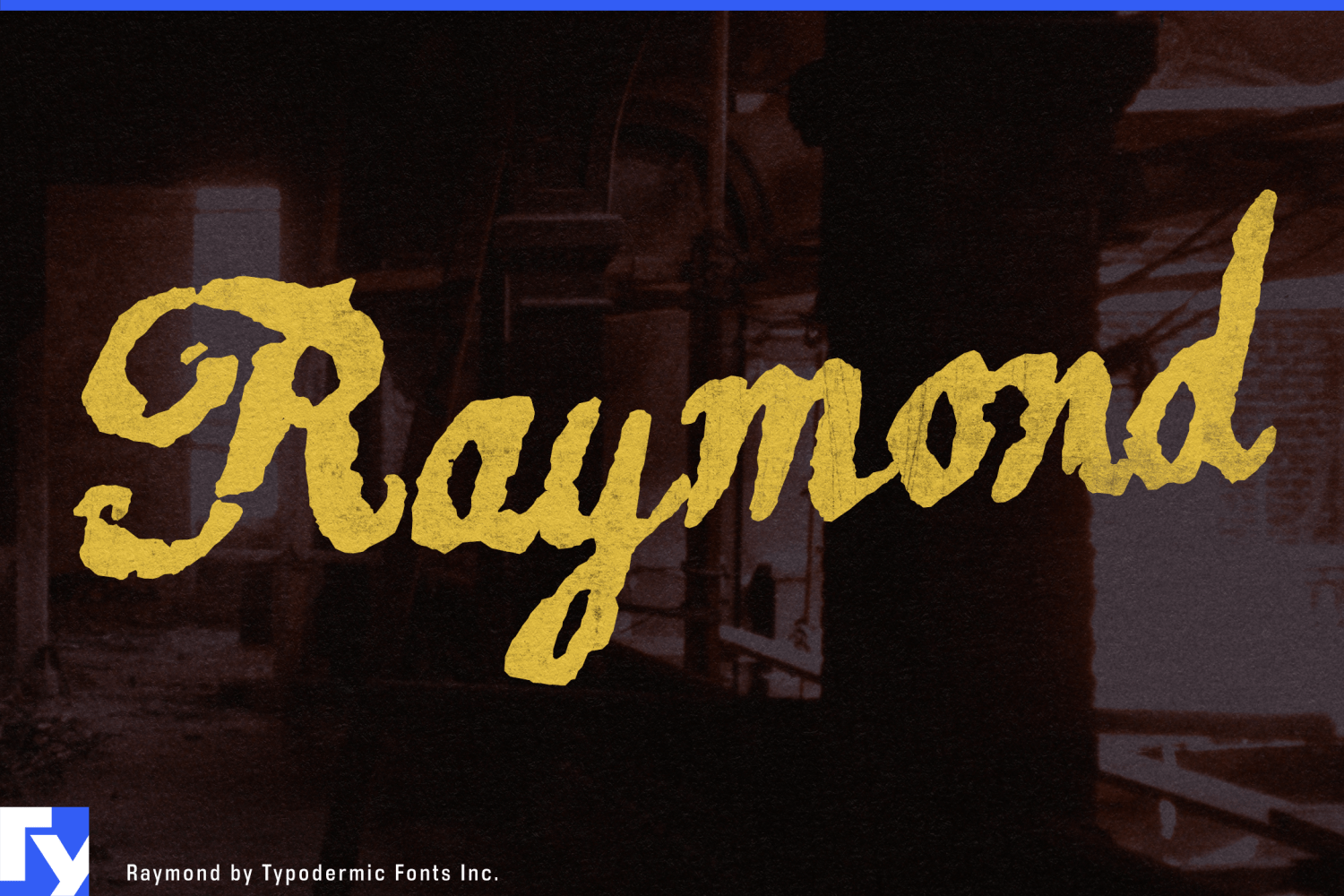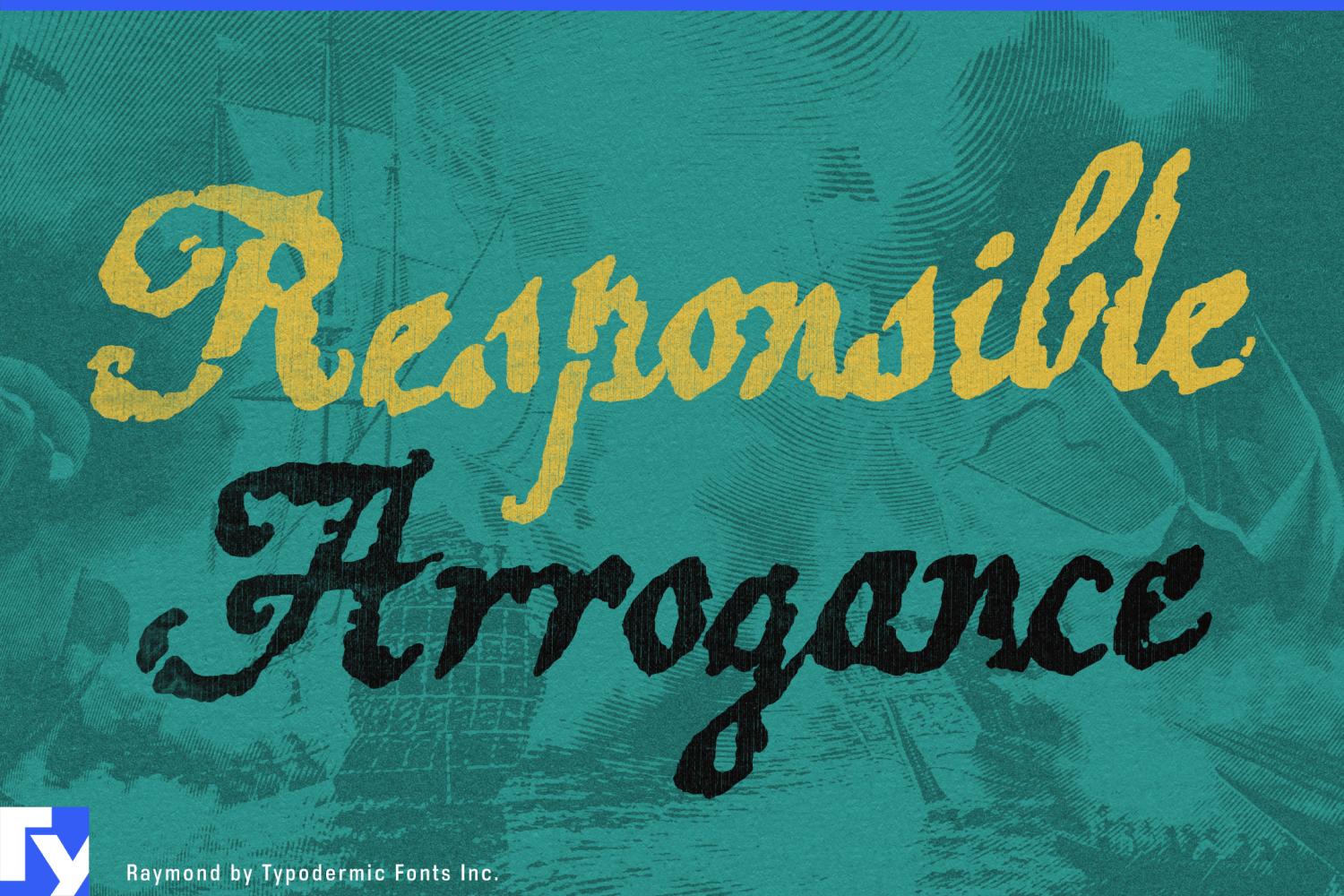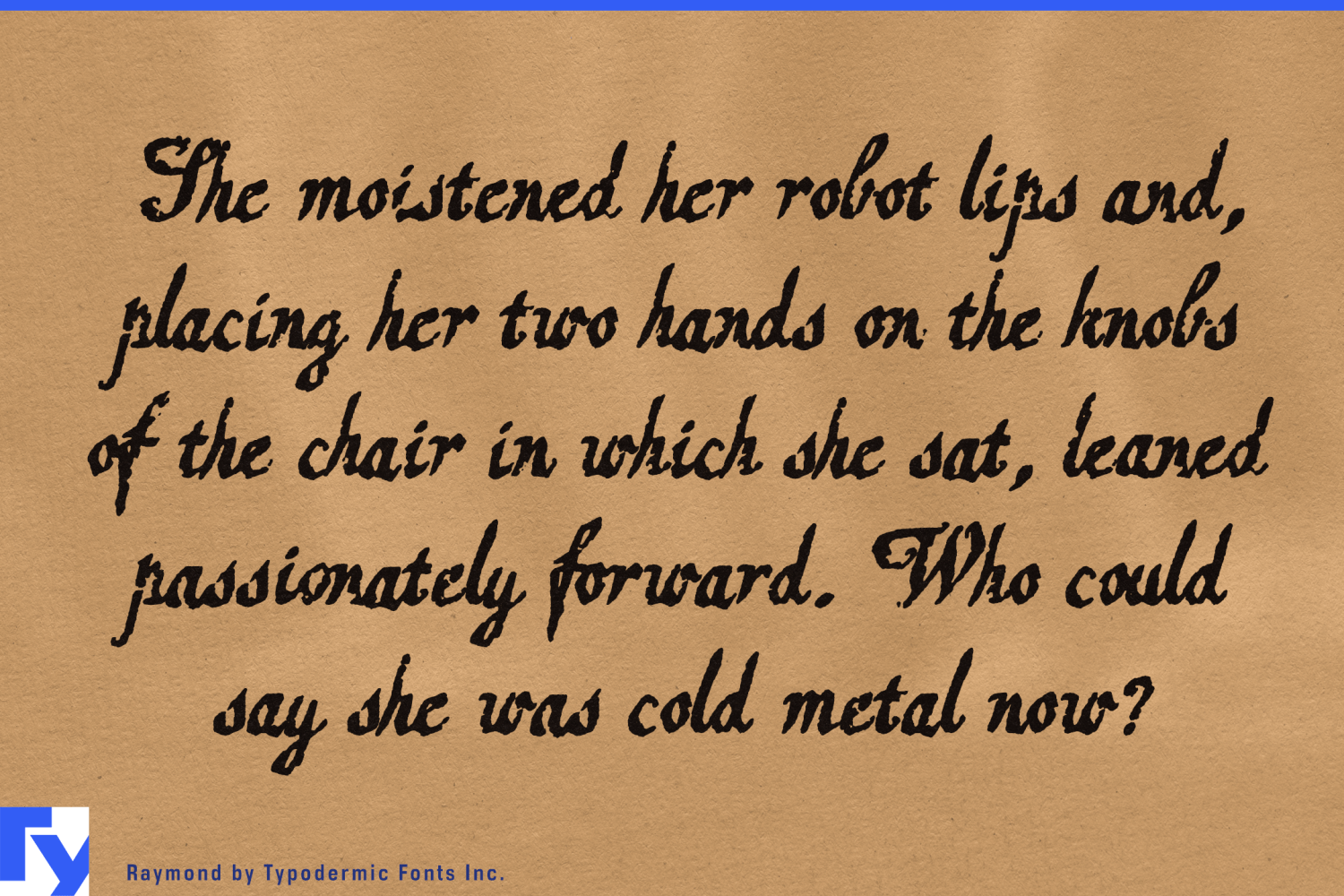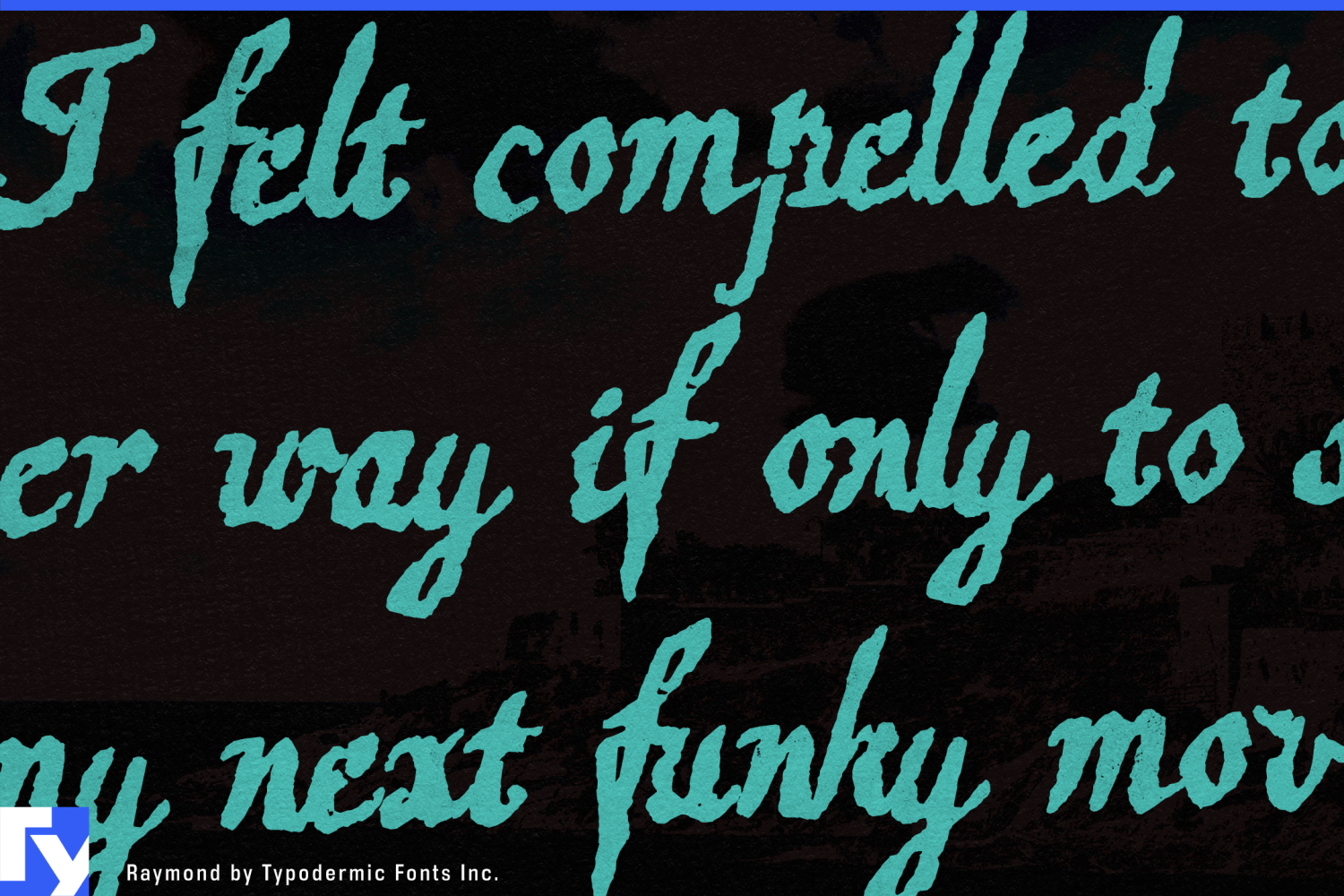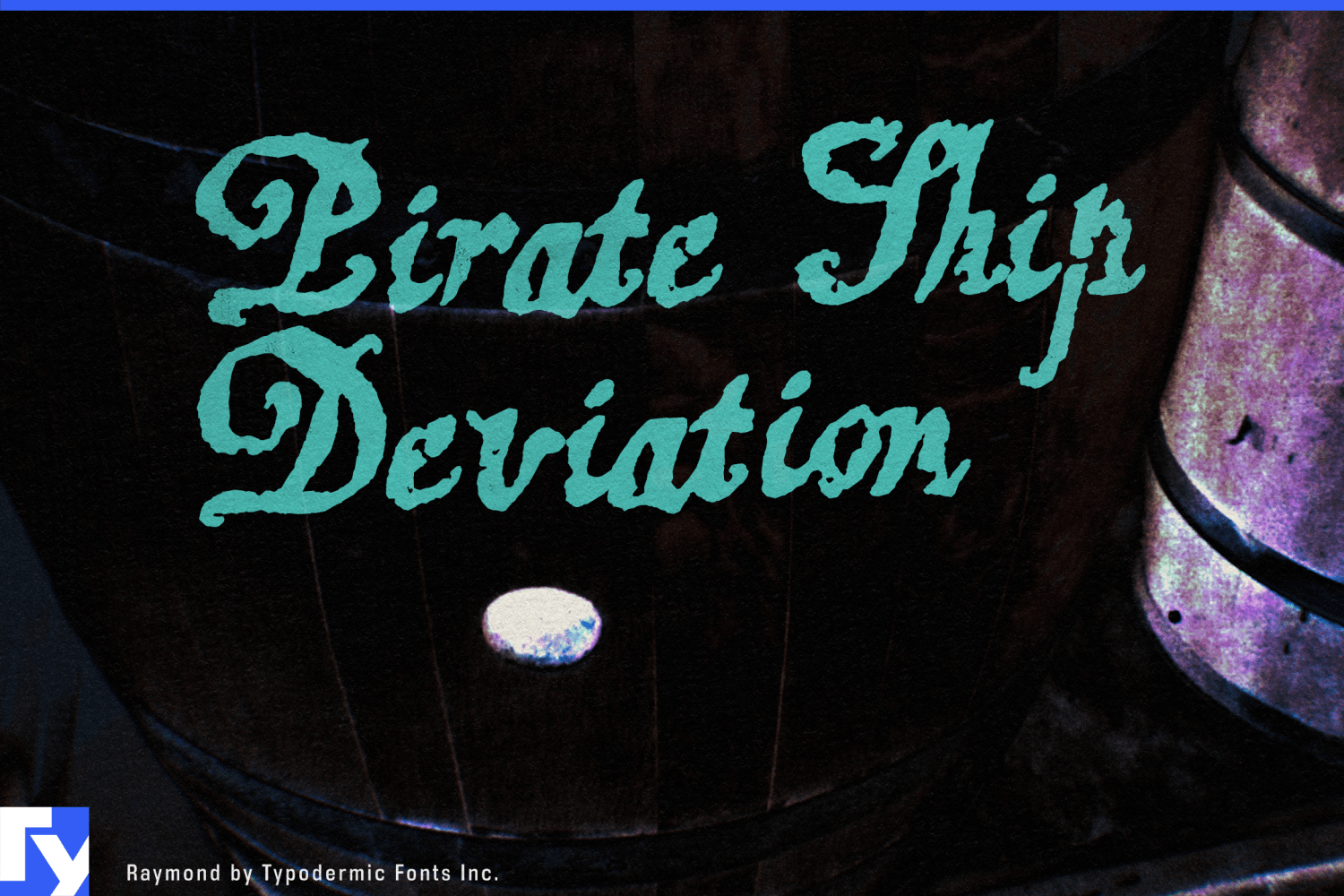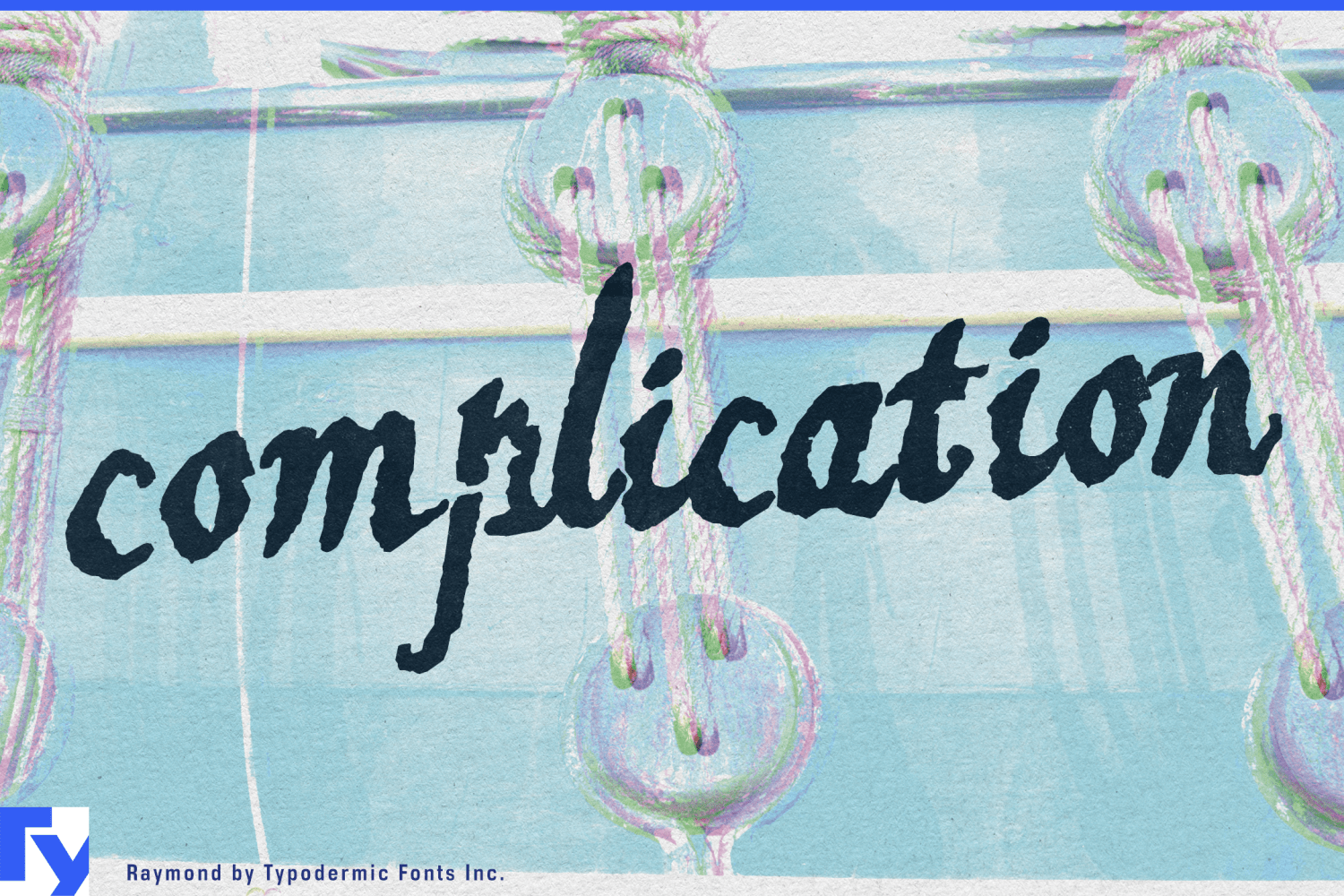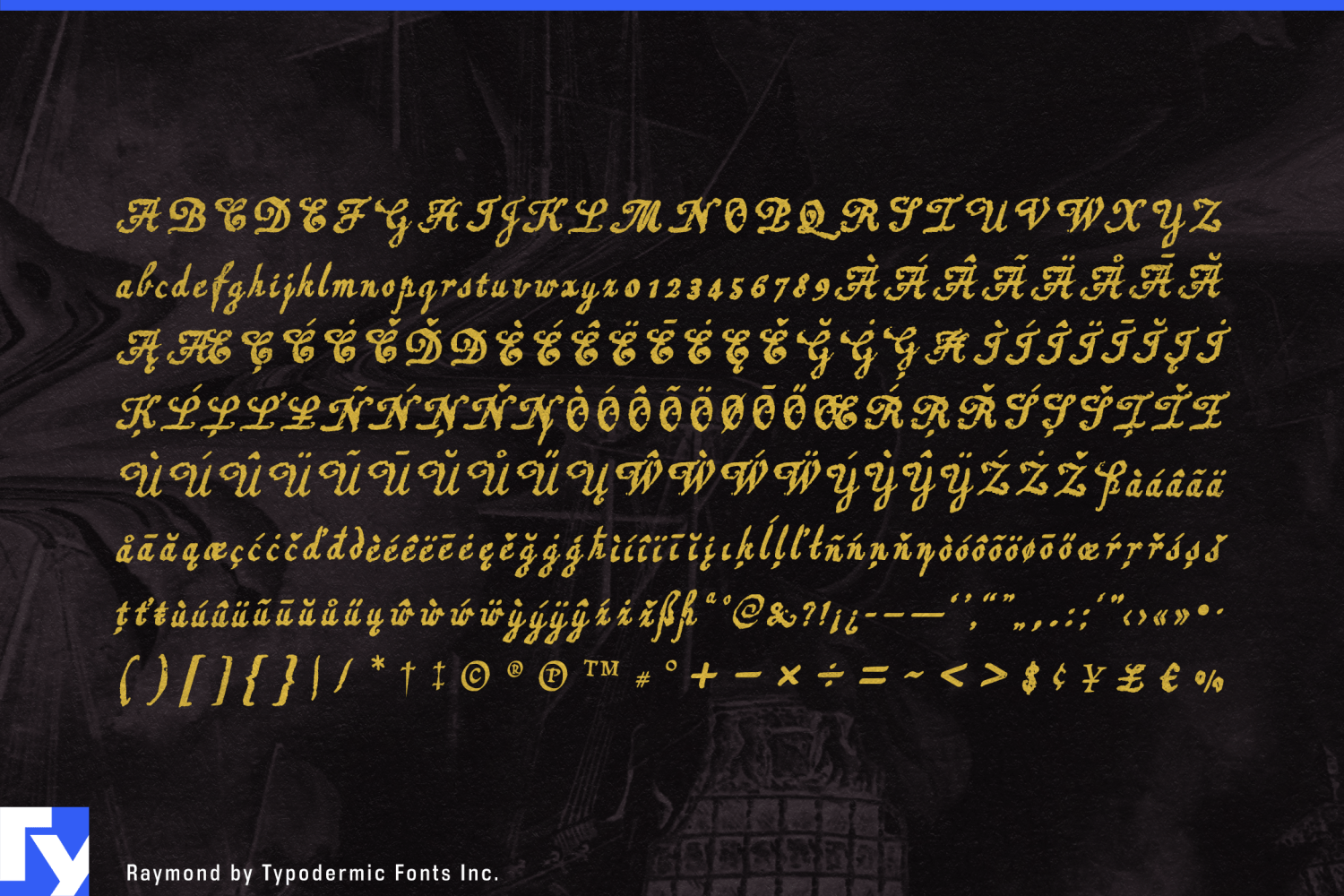
Raymond
Raymond began with an ornamental script found in an old metal-type catalog and ended after an unreasonable amount of digital mistreatment. The source was autotraced, distorted, and developed into a practical connected typeface. That working version was rasterized, subjected to layer after layer of Photoshop torture, retraced, cleaned by hand, and overlaid on the functional font. The process preserved the old design’s elaborate calligraphic structure while giving each contour the battered surface of a badly printed, badly stored, repeatedly copied artifact.
Looping capitals, pronounced stroke contrast, tall ascenders, and deep descenders carry the ceremony of historical commercial script. Rough edges, broken strokes, and patches of visual noise interfere with that formality. Raymond sits apart from tidy sign-painter nostalgia and ordinary distressed handwriting; it is formal lettering with doubtful provenance.
That contradiction works especially well on food and drink packaging. Raymond can lead labels for herbal bitters, amaro, dark rum, rye whiskey, vermouth, barrel-aged beer, and spiced cordials. Its rough ornament also suits fermented hot sauce, smoked salt, black garlic, preserves, molasses, dark chocolate, and old-fashioned confectionery. On a bottle label, neck tag, batch seal, chocolate wrapper, sauce carton, or tavern menu, the product name can appear inherited, illicit, or recovered from an archive whose filing system left much to be desired.
The same uneasy authority suits patent-medicine bottles, cigar boxes, travelling-magician handbills, dubious certificates, ghost-tour placards, séance invitations, folk-horror titles, and prop documents for fabricated histories. In music graphics, it fits psych-folk, murder-ballad collections, gothic Americana, garage blues, folk punk, and occult rock. The old songbook flourish survives, while the distressed surface keeps the result away from polite nostalgia.
Raymond makes its strongest impression in a few words. Product names, titles, chapter openings, oversized initials, and short poster lines give the intricate capitals and damaged contours enough room to work. It was built as a practical font beneath all that damage, but its real task is atmosphere rather than sustained reading.